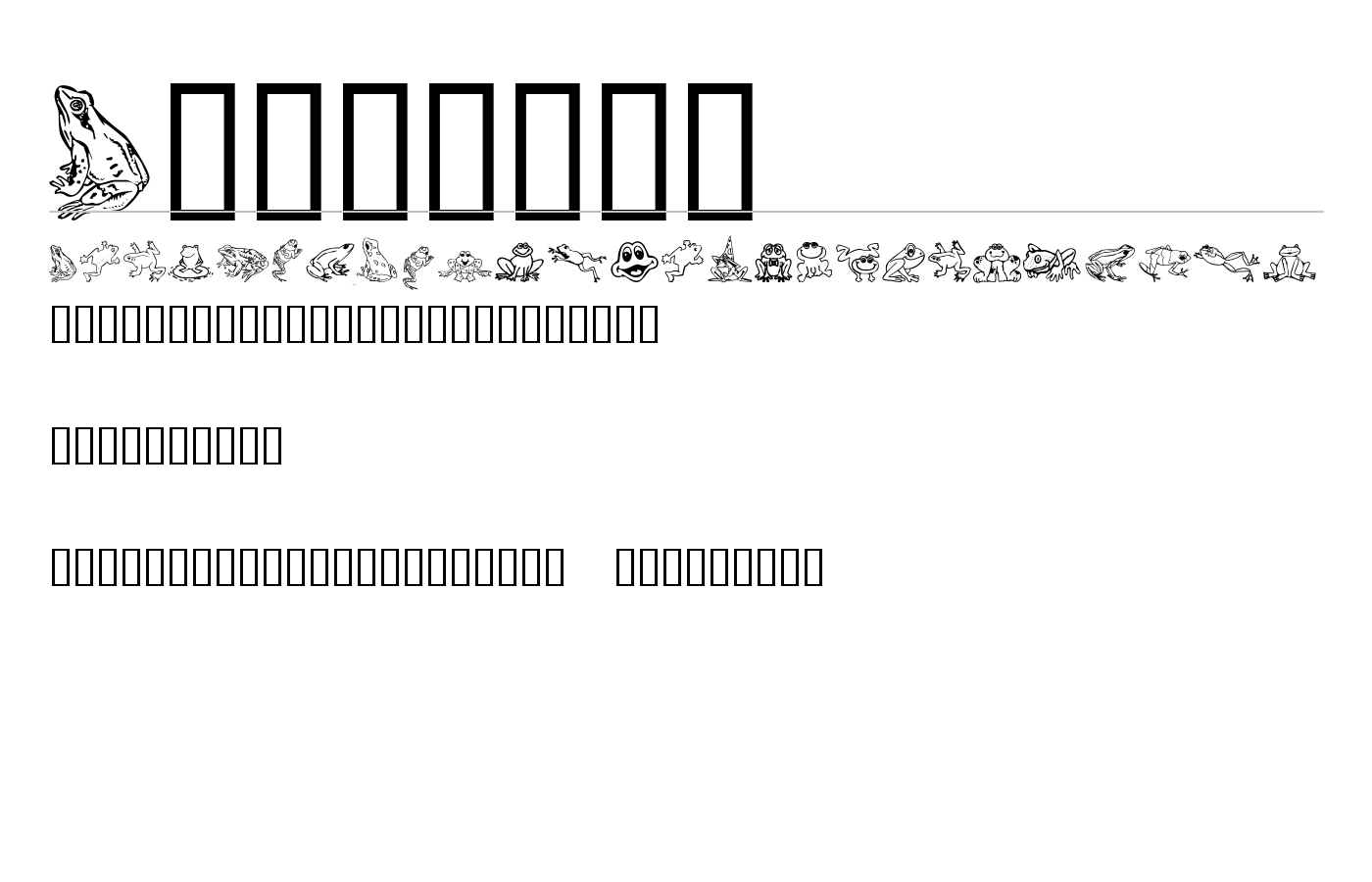
Amphibia Font is a playful and whimsical display typeface featuring charming frog illustrations as its unique glyphs, offering a fun and lighthearted feel. This font works best for creative projects, children’s materials, and nature-themed designs that benefit from its distinctive and engaging character set. Its decorative style makes it ideal for headlines, logos, and any context where a quirky, memorable touch is desired.
Amphibia Font